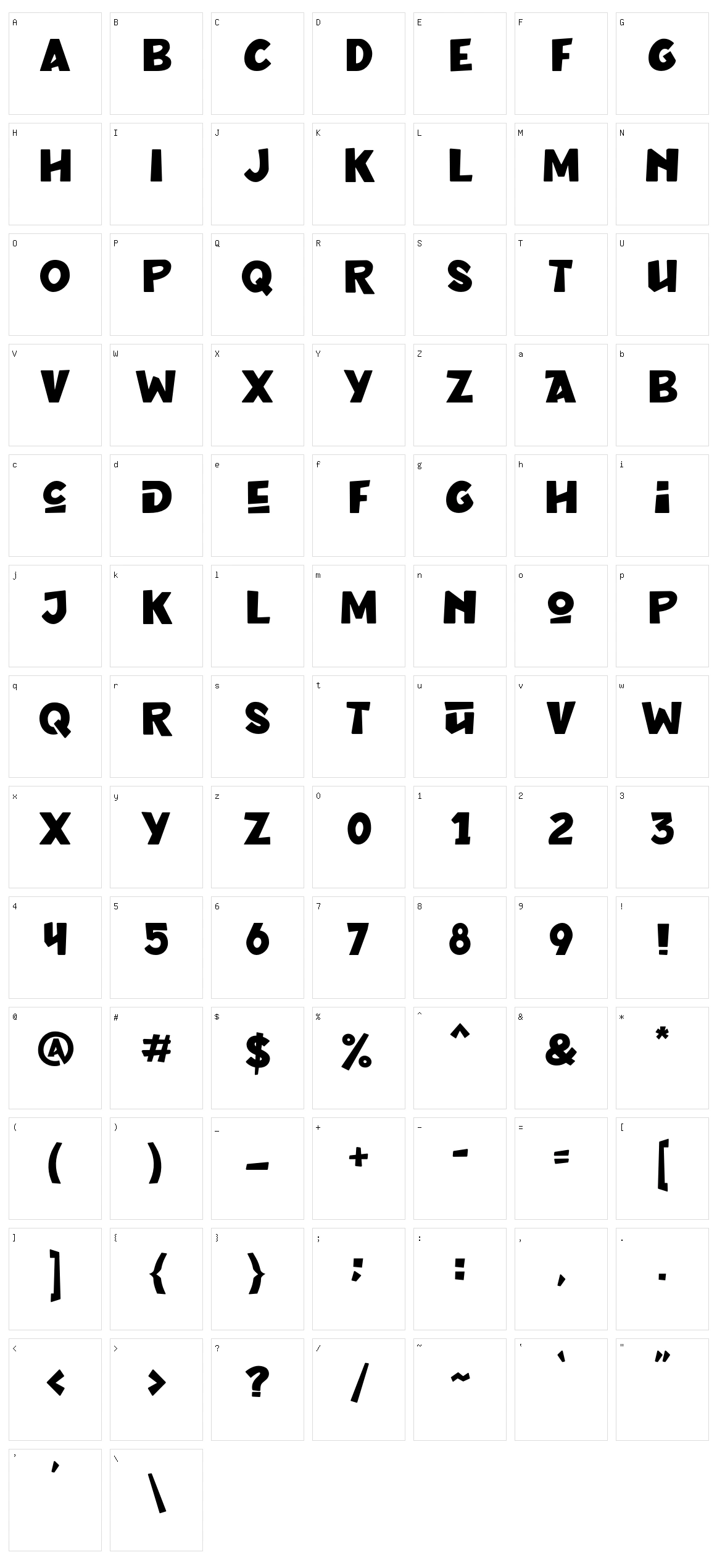
The free font Grozel is carefully designed by Krakenbox Std, showcasing a thoughtful balance of creativity and usability and falls under the Cartoon font style. When you download the ZIP file, it contains only 12.43 KB of font files, making it lightweight and quick to download. Please review the license details below to understand permitted usage and distribution rights. If license information is not available, we recommend using this font for personal projects only or contacting the author directly for commercial usage permissions.